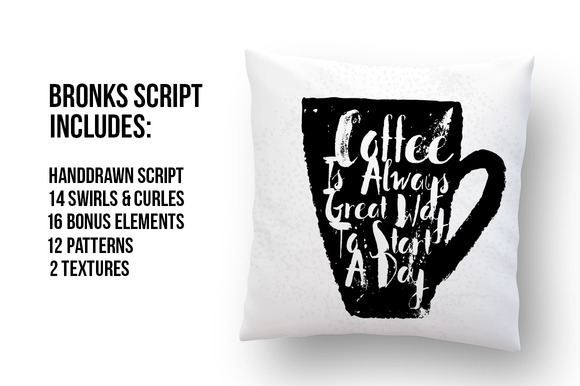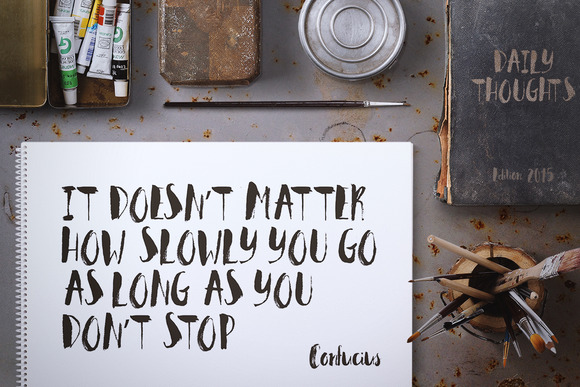
Bronks Script Font
db-ku.com - Script & Handwritten -- Bronks is a bold type with a strong personality. It’s messy and looks great on titels. The Bronks font was created by drawing on textured paper with a brush and ink.